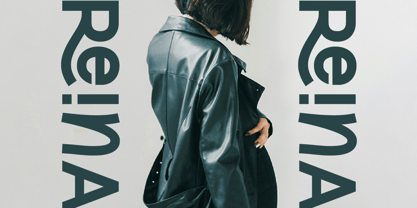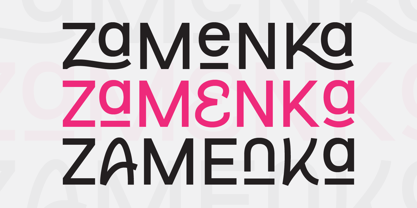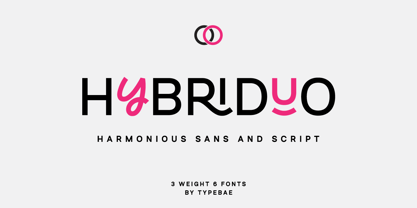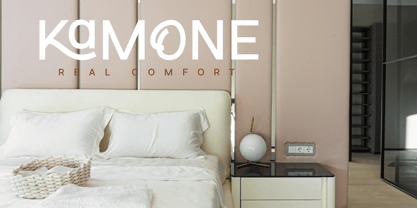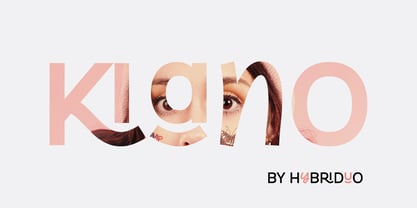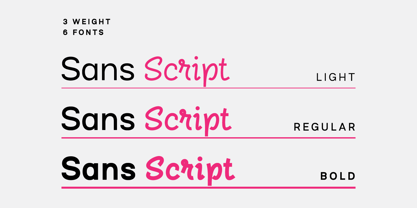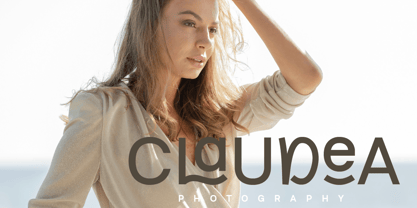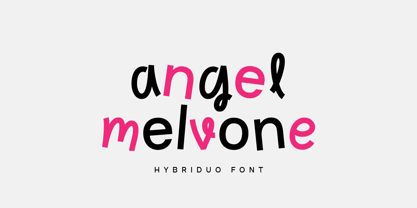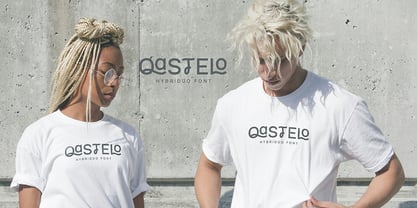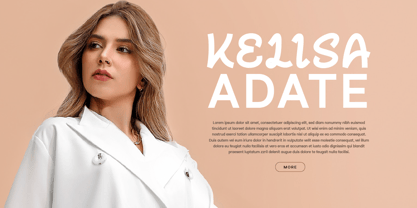
Hybriduo
by Typebae
The Hybriduo Font Family was designed by Iqbal Pauji and published by Typebae. Hybriduo contains 6 styles and family package options. More about this family
Hybriduo is a stylish and playful pairing of Sans and Script fonts. This perfectly balanced typeface has been thoughtfully designed to shine both as a standalone font and in seamless combinations. Whether you place the Script font between Sans letters, experiment with swooping Sans ligatures, or embrace the lively small caps, the possibilities are endless. With versatile options for lowercase and uppercase styles, plus three weights per font, you get a total of six fonts to explore!